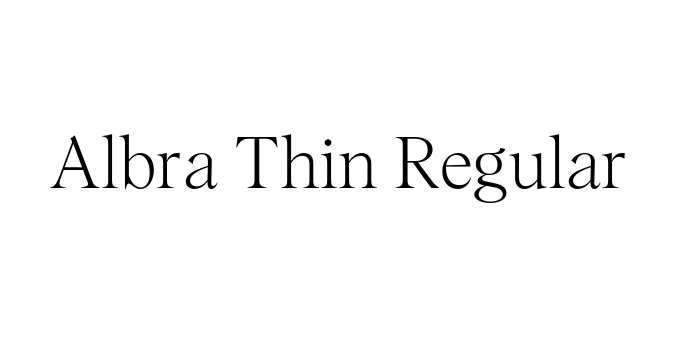
Albra Thin Regular
Designed by BumBumType
Albra Thin Regular is a sophisticated serif typeface family developed by the independent foundry BumBumType. It is characterized by its high contrast, elegant curves, and a harmonious blend of classic and contemporary aesthetic elements. The Thin weight specifically offers a delicate and refined appearance, making it ideal for high-end fashion, luxury branding, and sophisticated editorial layouts where legibility meets artistic flair.
The design philosophy behind the Albra family focuses on versatility across various weights, from the hairline delicacy of the thin styles to the robust presence of the poster weights. It has gained widespread popularity in the design world for its ability to convey a sense of timeless elegance while maintaining a sharp, modern edge. The family includes numerous alternates and ligatures, providing designers with comprehensive tools to create bespoke typographic compositions for both digital and print media.
Albra Thin Regular Best Uses
Perfect for magazine headings, pull quotes, and sophisticated layout titles.
Ideal for high-end logos, perfume packaging, and boutique visual identities.
Excellent for hero sections and minimalist website headers.
Great for creating aesthetic and premium social media graphics.